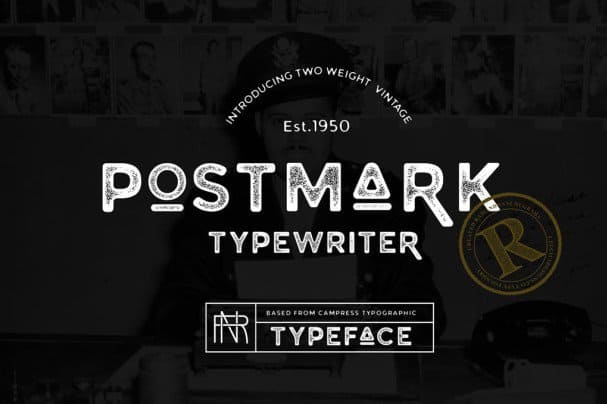
Postmark Typewriter Font
Postmark Typewriter Font as it’s miles clear from its name that it is the primary font of adobe. This typeface is likewise well-known for its ambitious and italic function and it’s also present indoors google fonts. Its appearances are immoderate in huge sizes in the interest of small. However, the topography each higher and reduce case letterings, numbers, and glyphs.